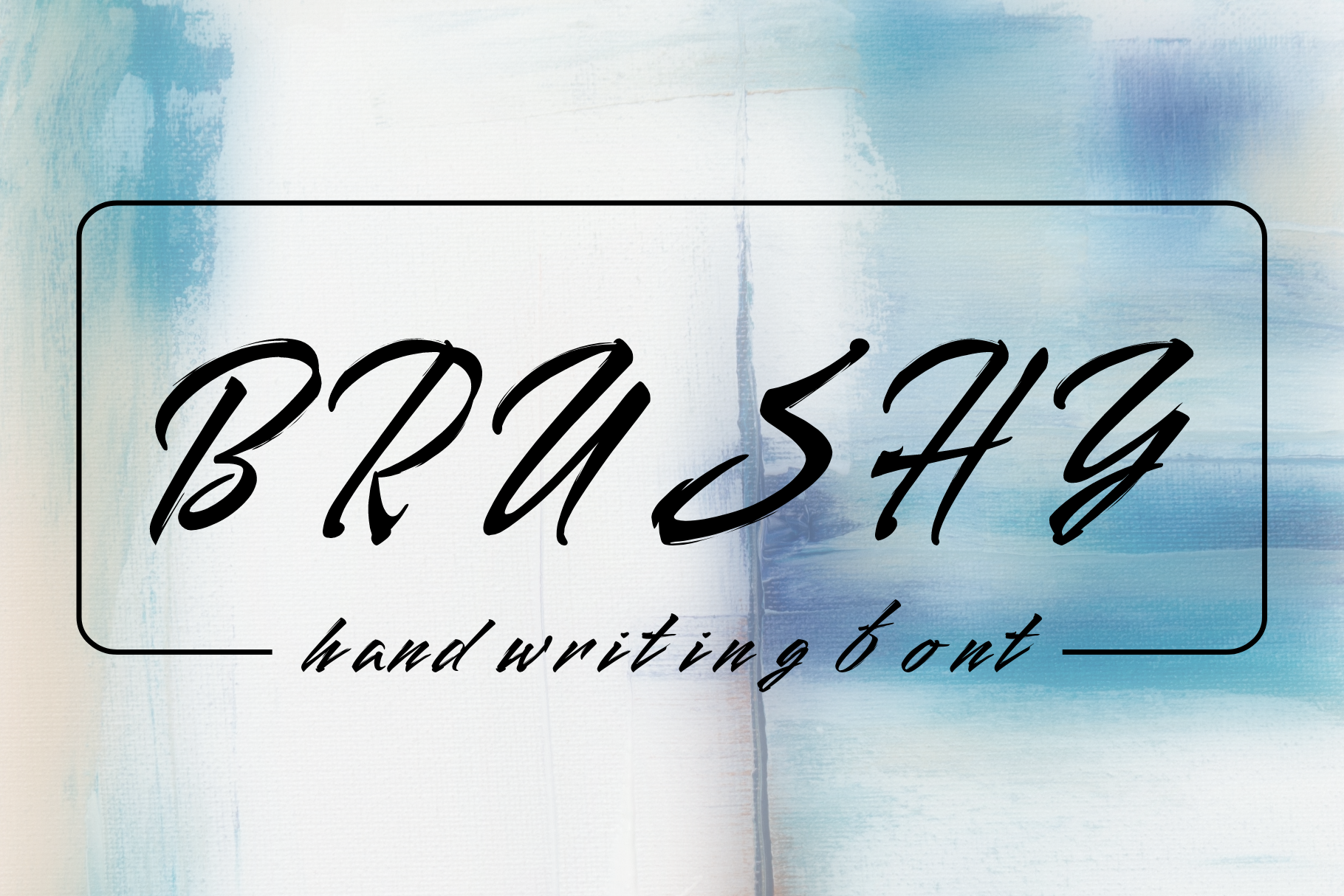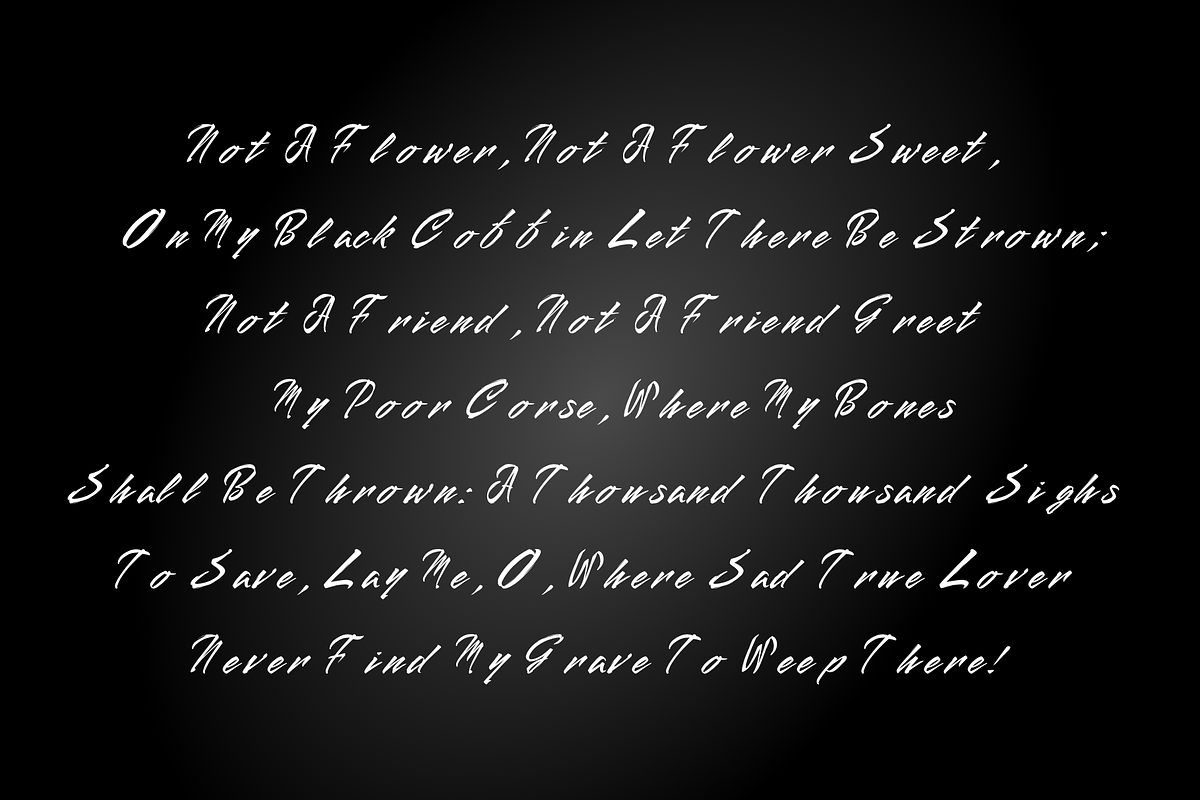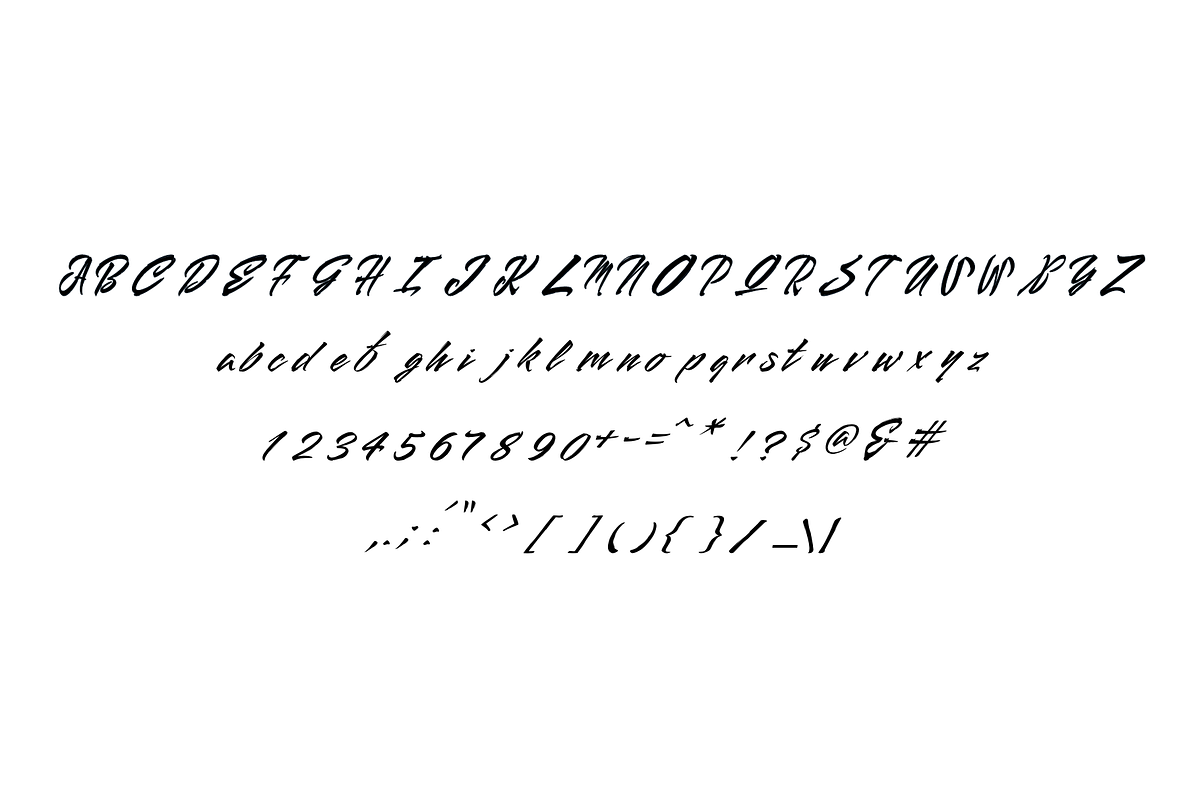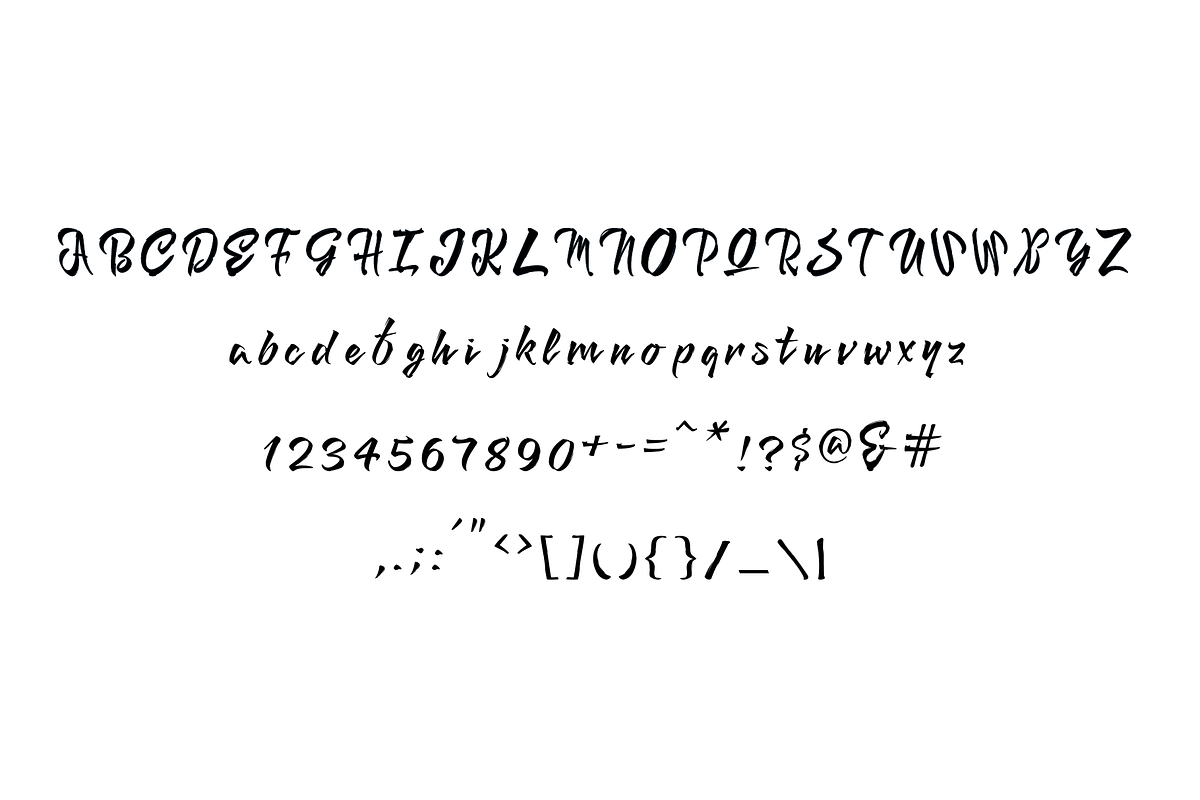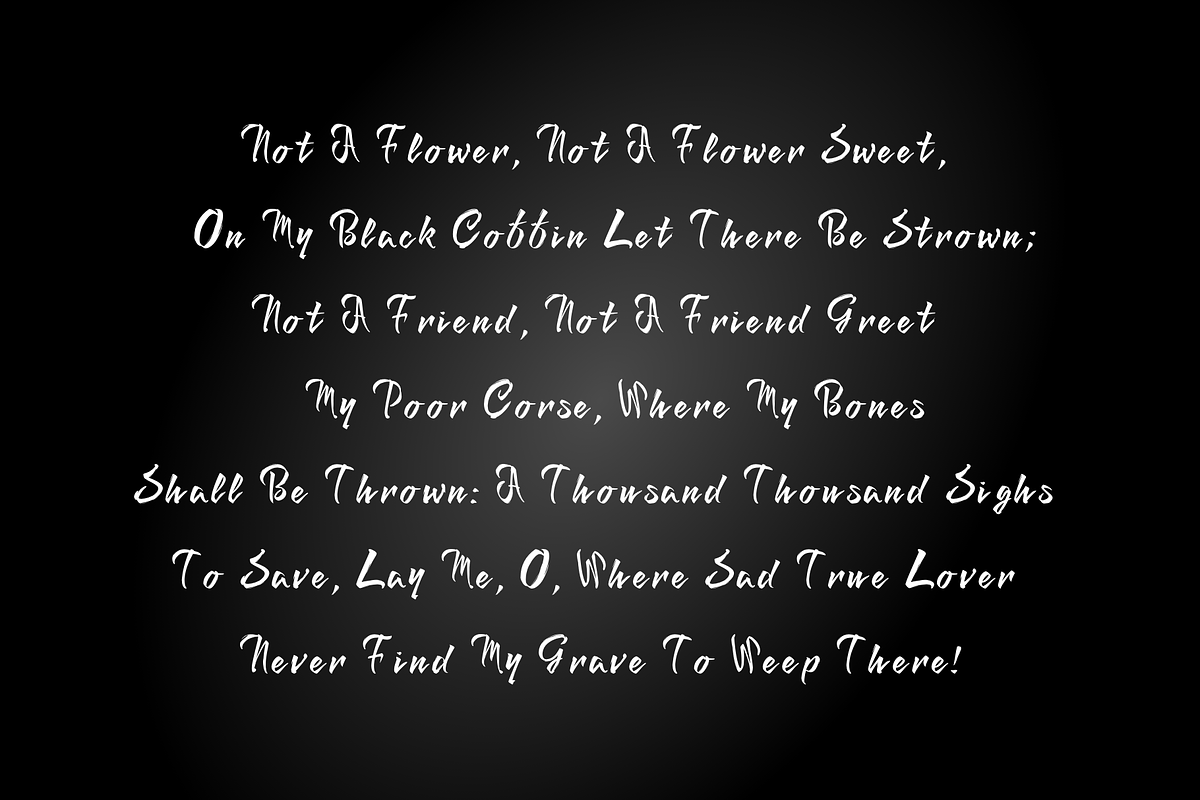
Brushy - Modern Typeface
Brushy - beautifully crafted modern typeface with 2 styles (regular & italic) for your awesome projects
- Consistency
- Well organized